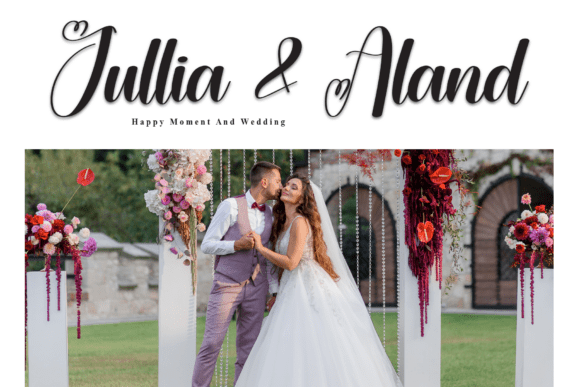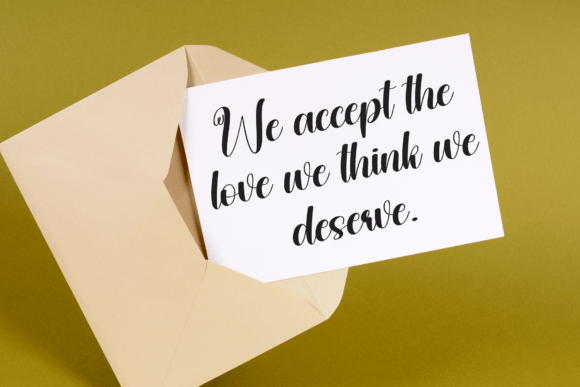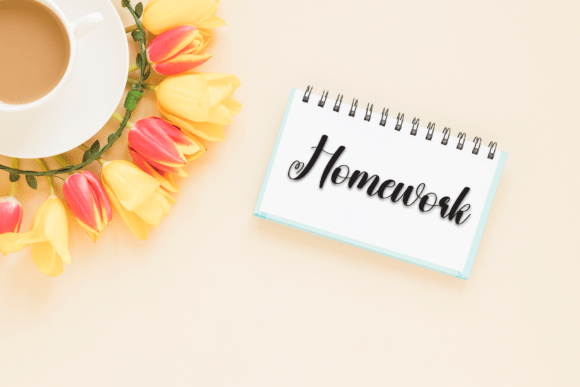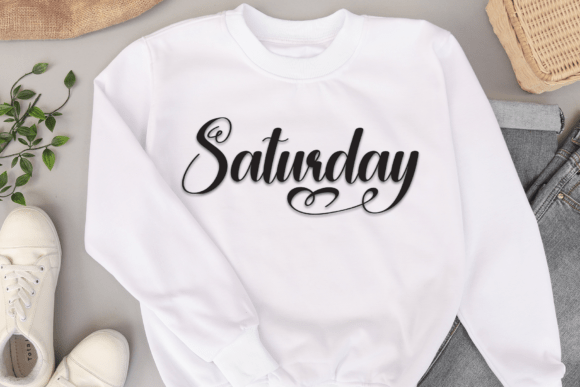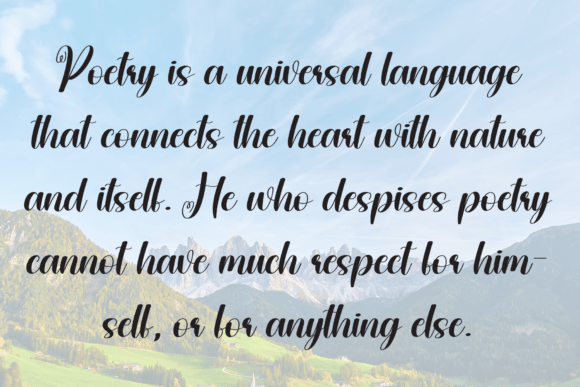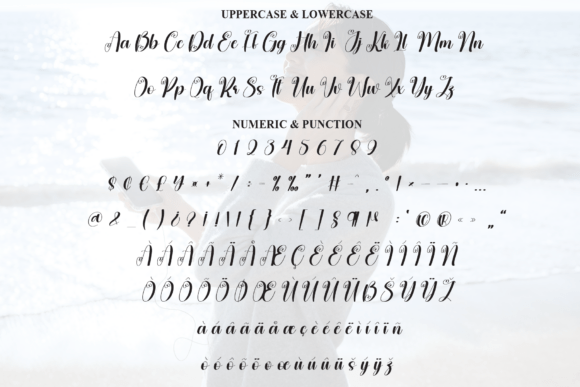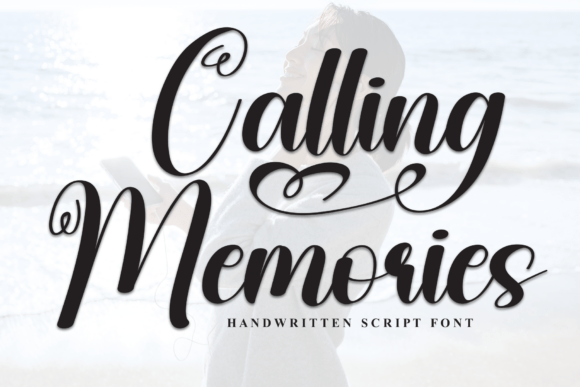
Introducing Calling Memories Font: Elevate Your Designs with Elegance and Sophistication
In the world of typography, few fonts manage to capture the essence of elegance and contemporary charm as effectively as Calling Memories. This stylish script font is a masterpiece of modern design, blending the fluidity of hand-drawn calligraphy with the precision of digital craftsmanship. Whether you’re a designer looking to elevate your brand’s visual identity or a crafter seeking to add a touch of sophistication to your projects, Calling Memories is the perfect choice.
The Beauty of Calling Memories
Calling Memories features graceful strokes, fluid curves, and meticulously crafted letterforms that work in harmony to create a visually stunning font. Each character is designed to flow seamlessly into the next, producing a natural, hand-written feel that is both organic and refined. The font’s contemporary twist on traditional calligraphy makes it versatile enough to be used in a wide range of applications, from logos and invitations to packaging and social media graphics.
Key Features of Calling Memories Font
- Elegant and Sophisticated: Calling Memories exudes a refined charm that adds a touch of luxury to any design.
- Fluid and Natural: The font’s fluid strokes and curves create a natural flow that mimics hand-drawn calligraphy.
- Versatile: Suitable for a variety of design projects, including logos, invitations, packaging, and social media graphics.
- Polished Details: Every letterform is carefully crafted to ensure a high level of detail and precision.
Applications of Calling Memories Font
The versatility of Calling Memories makes it an excellent choice for various design applications. Here are a few ways you can use this beautiful font:
Logo Design
A well-designed logo is crucial for any brand, and Calling Memories can help you create a lasting impression. Its elegant and sophisticated feel makes it perfect for brands looking to convey a sense of luxury, style, and refinement.
Invitations and Stationery
Whether you’re planning a wedding, a birthday party, or any other special event, Calling Memories can add a touch of elegance to your invitations and stationery. Its fluid strokes and natural flow make it ideal for creating beautiful and memorable invites.
Packaging Design
In the competitive world of product packaging, standing out is crucial. Calling Memories can help you create eye-catching packaging that reflects your brand’s personality and style. Its sophisticated feel makes it suitable for luxury brands, while its versatility ensures it can be used across various product lines.
Social Media Graphics
Social media is a vital platform for engaging with your audience, and high-quality graphics are essential for capturing attention. Calling Memories can help you create stunning social media graphics that reflect your brand’s elegance and sophistication.
Why Choose Calling Memories Font?
With so many fonts available, why should you choose Calling Memories? Here are a few compelling reasons:
- Unique and Distinctive: Calling Memories offers a unique and distinctive style that sets it apart from more traditional fonts.
- Ease of Use: The font is easy to read and works well in both digital and print formats.
- Highly Versatile: Suitable for a wide range of design applications, from elegant logos to stylish social media graphics.
- Timeless Appeal: The font’s classic elegance ensures it will remain stylish for years to come.
Calling Memories is more than just a font – it’s a design statement. Its elegant and sophisticated feel, combined with its versatility and visual appeal, make it an excellent choice for designers and crafters looking to elevate their projects. Whether you’re creating a logo, invitation, packaging, or social media graphics, Calling Memories can help you achieve a refined and polished look. With this font, you can add a touch of luxury and style to any design, making it a valuable addition to your typographic toolkit.